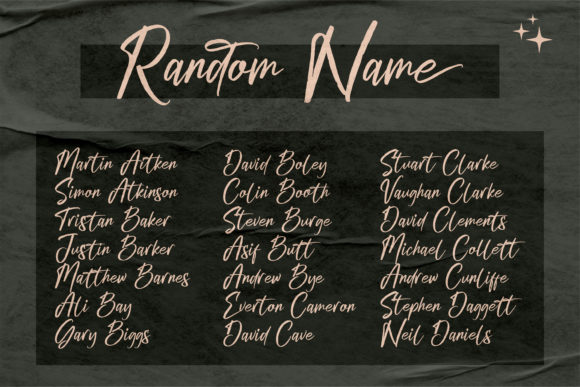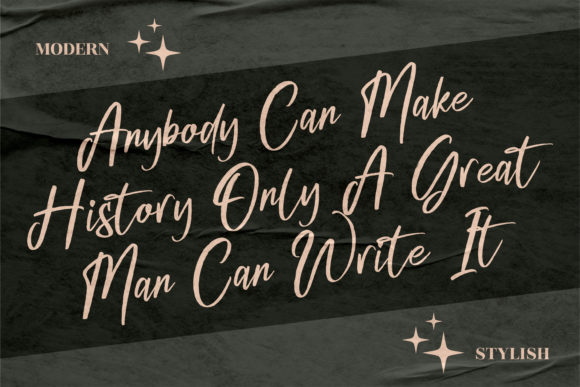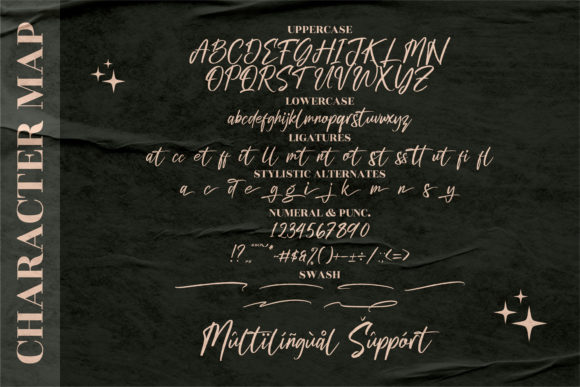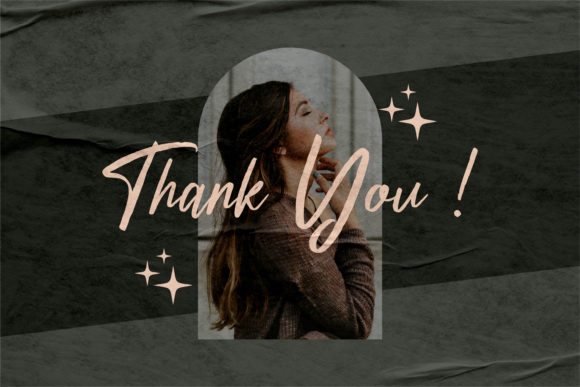
About Gabriela Ragile Font
Introducing “Gabriela Ragile,” a fragile, elegant, and versatile script font that will mesmerize you with its graceful charm. This font captures the essence of delicate beauty and showcases its versatility across a wide range of design projects.
The fragile and refined nature of “Gabriela Ragile” is evident in its intricate letterforms. Each character is meticulously crafted to exude elegance and sophistication. The delicate strokes and gentle curves create a sense of grace and poise, making it the perfect choice for projects that require a touch of femininity and refinement.
Despite its delicate appearance, “Gabriela Ragile” is remarkably versatile. Its stylish alternates and ligatures give you the freedom to experiment and create unique designs. Whether you’re working on wedding invitations, branding materials, logos, or any other project, this font adapts effortlessly to suit your desired aesthetic.
One of the standout features of “Gabriela Ragile” is its extensive set of glyphs and swashes, all conveniently accessible through its PUA encoding. This means you can easily embellish your designs with intricate flourishes, decorative elements, and stylistic variations, adding an extra layer of sophistication and customization.
The versatility of “Gabriela Ragile” extends to various design contexts. From elegant and formal designs to more whimsical and romantic creations, this font seamlessly adapts to different styles and moods. It effortlessly complements a wide range of projects, making it a valuable addition to your font library.
Whether you’re designing for print or digital media, “Gabriela Ragile” shines in all its glory. It adds a touch of class and sophistication to wedding invitations, stationery, packaging, blog graphics, social media posts, and more. Its delicate and versatile style allows you to create spectacular designs that leave a lasting impression.
With “Gabriela Ragile,” you can evoke a sense of timeless beauty and refined elegance in your designs. Its fragile and versatile nature provides endless possibilities for creativity and expression. Fall in love with its exquisite style and witness how it elevates your designs to new heights.
So, embrace the fragile elegance of “Gabriela Ragile” and let its versatility inspire your creative journey. Its PUA encoding ensures easy access to all the glyphs and swashes, enabling you to effortlessly customize and enhance your designs.
Discover the beauty and versatility of “Gabriela Ragile” and let its delicate charm transform your designs into works of art. Immerse yourself in the world of elegance and refinement as you explore the endless possibilities this font offers.